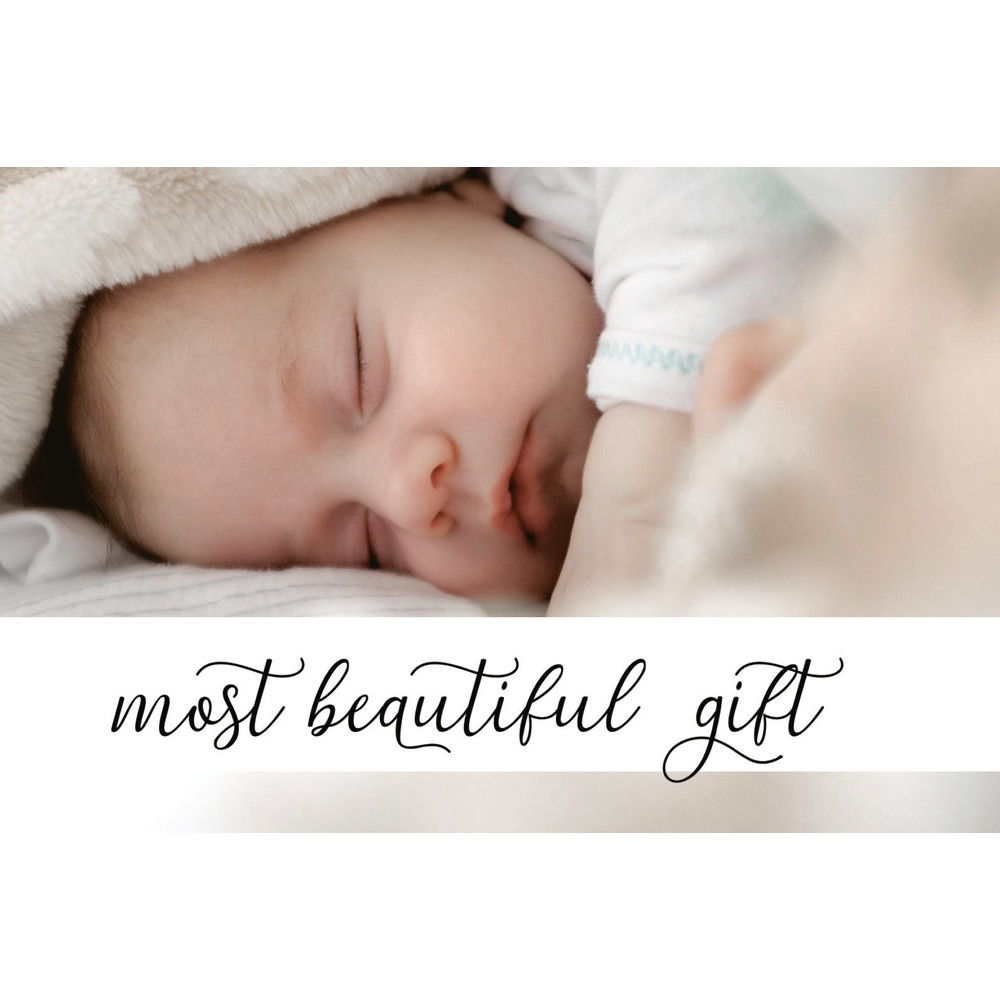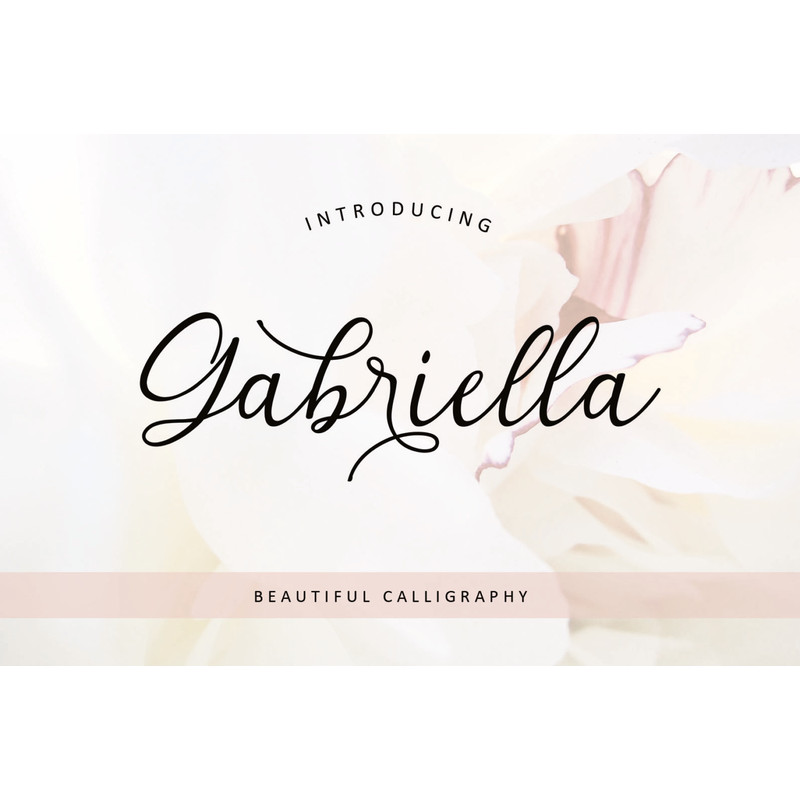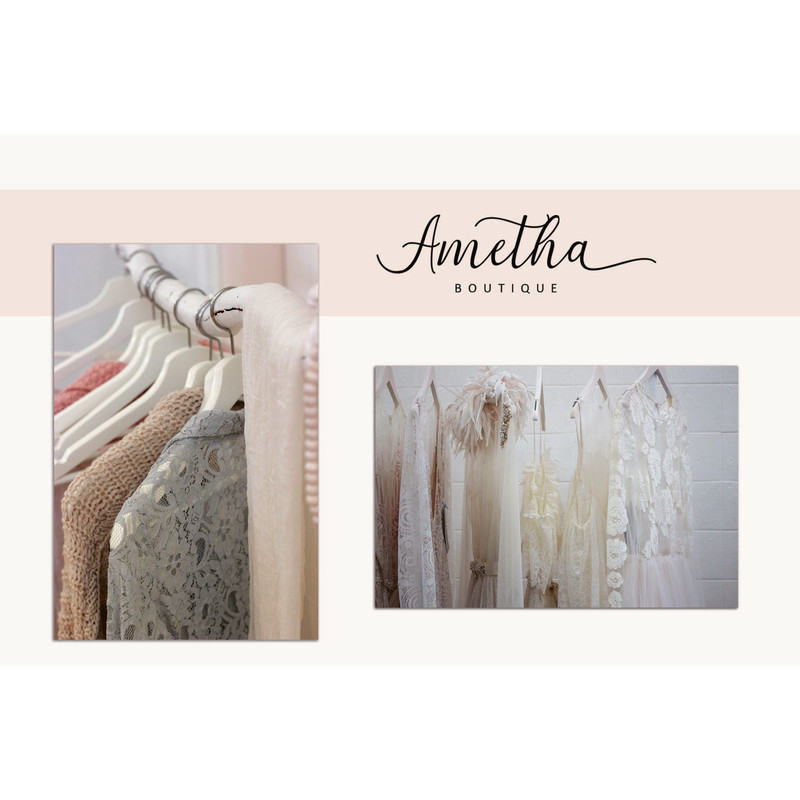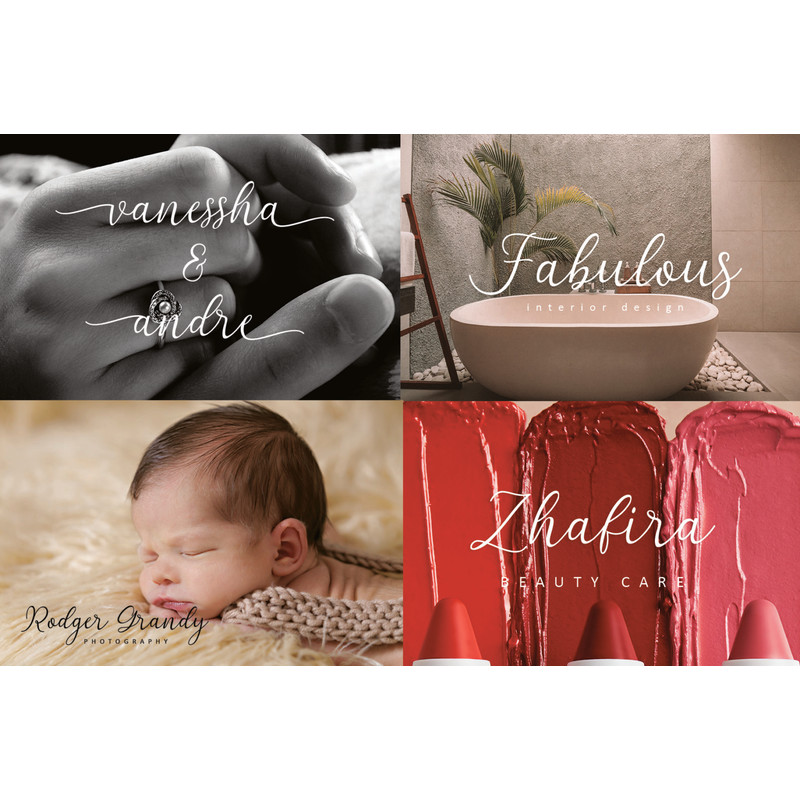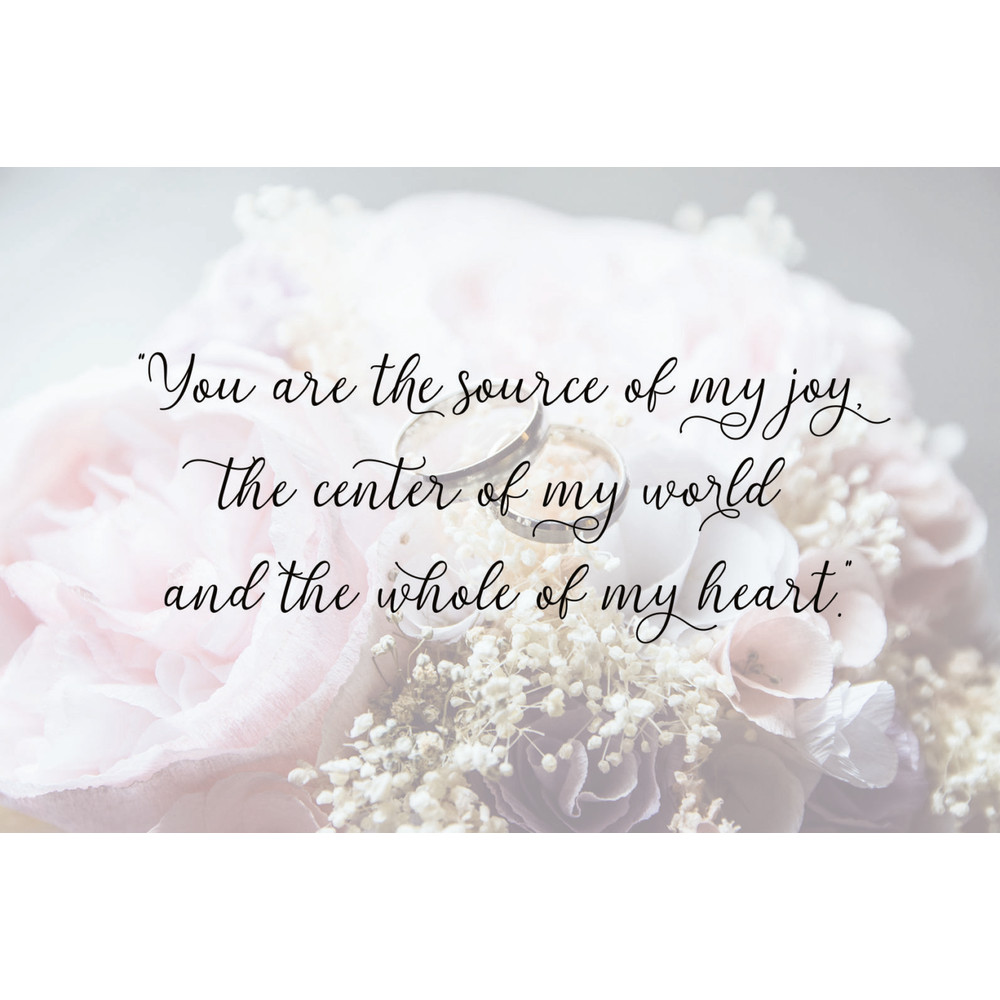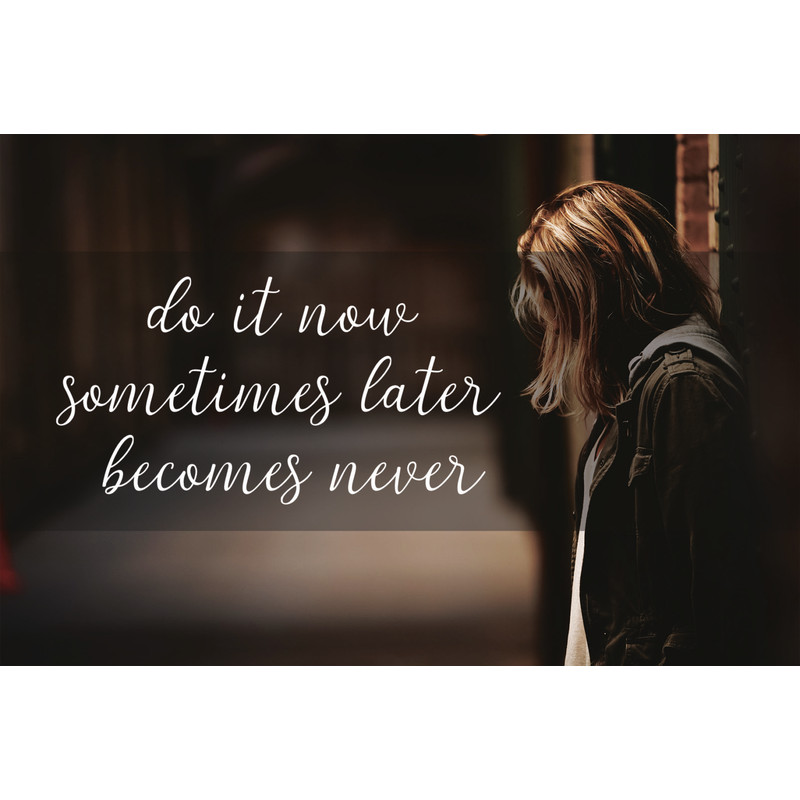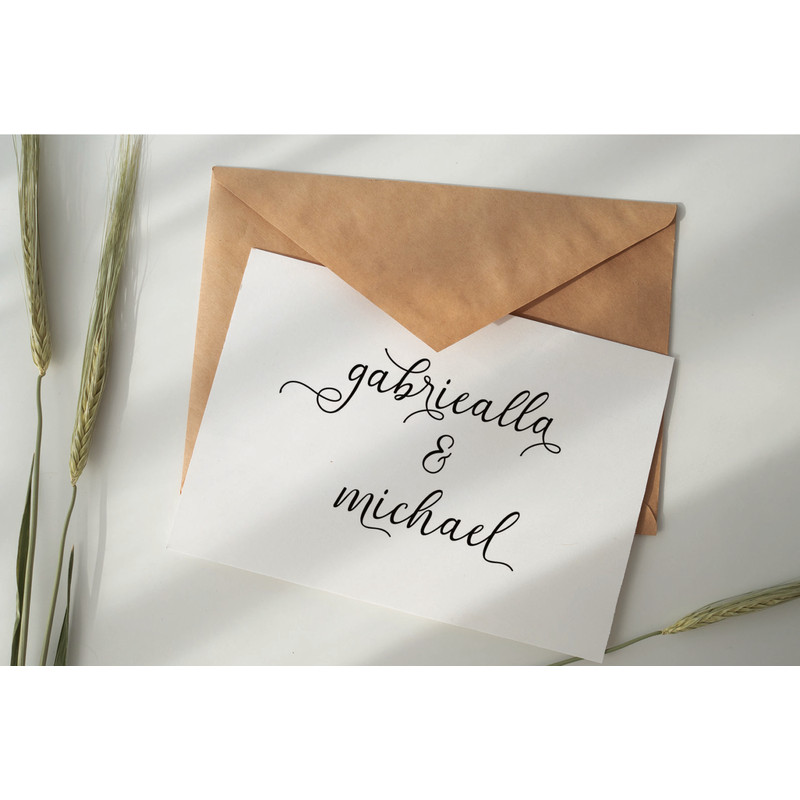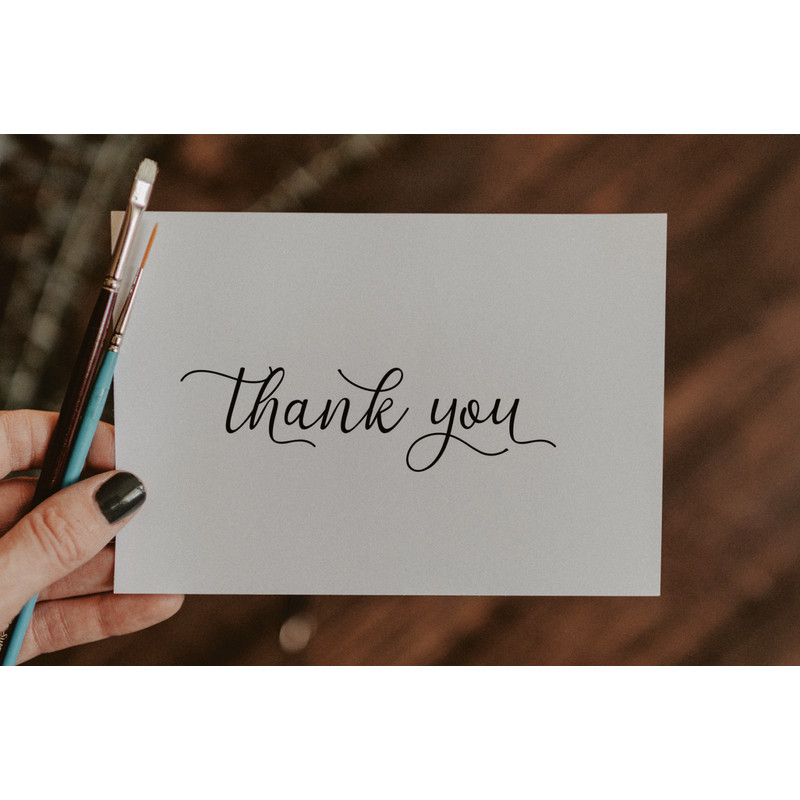
Gabriella Modern Calligraphy Trending Fonts - Digital Font
Gabriella is a romantic font with amazing alternatives and swashes that will add an elegant and luxurious touch to your designs.
Gabriella Modern Calligraphy Trending Fonts - Digital Font
Gabriella is a romantic font with amazing alternatives and swashes that will add an elegant and luxurious touch to your designs.